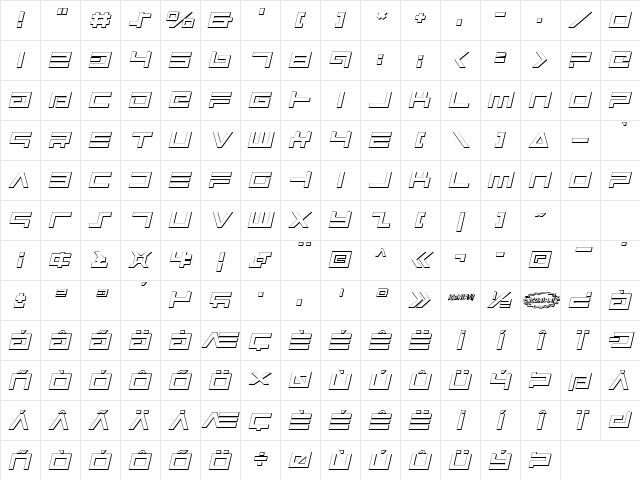
Complete Avenger Shadow Italic glyph index. Displaying only characters natively supported by Avenger Shadow Italic font.
Avenger Shadow is built around its visual character rather than neutral utility - its distinctive forms are designed to make an impression at display sizes. The slanted form adds forward momentum and visual energy.
Font Pairing: Pair with a clean neutral sans-serif for body copy to let Avenger Shadow's character lead without overwhelming the composition.
Pro Tip: Use Avenger Shadow exclusively at display sizes - it was designed to be seen, not read at length. Let a neutral companion handle body copy.